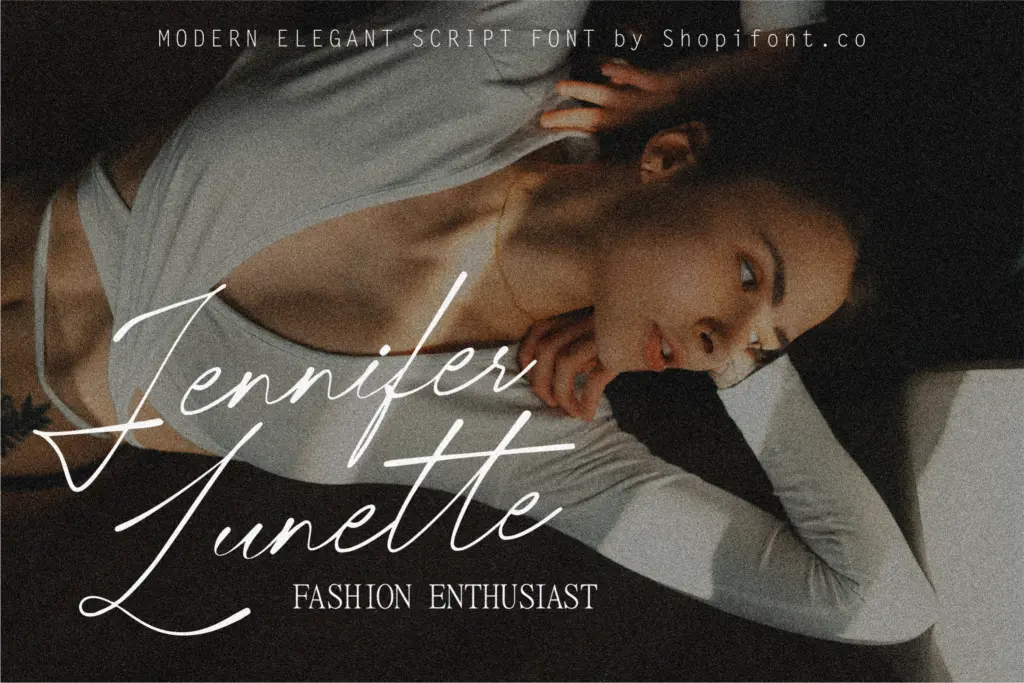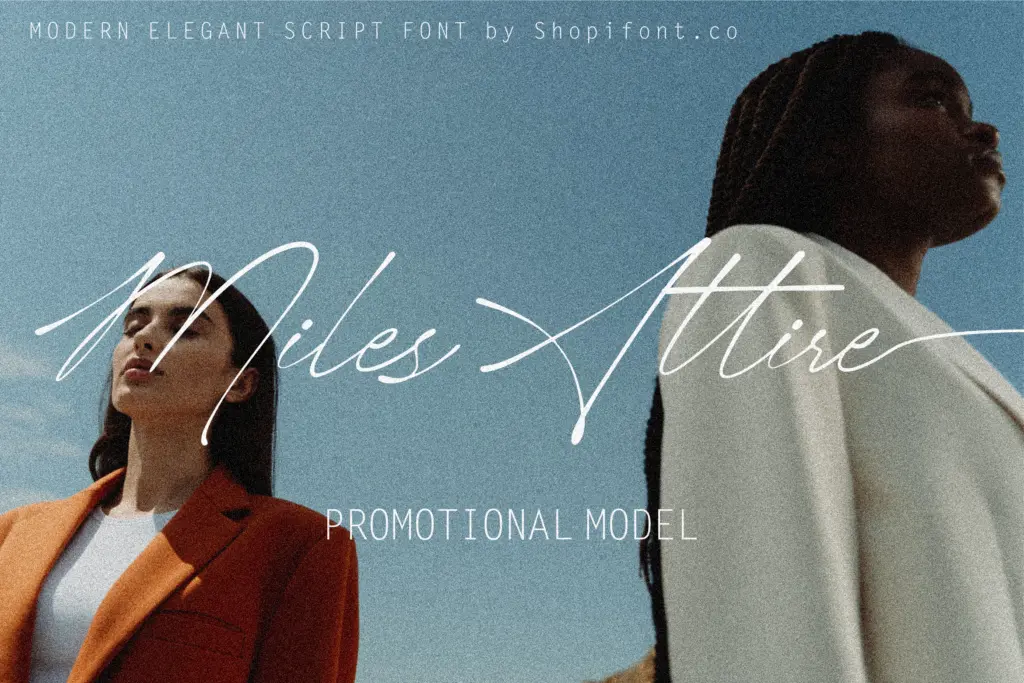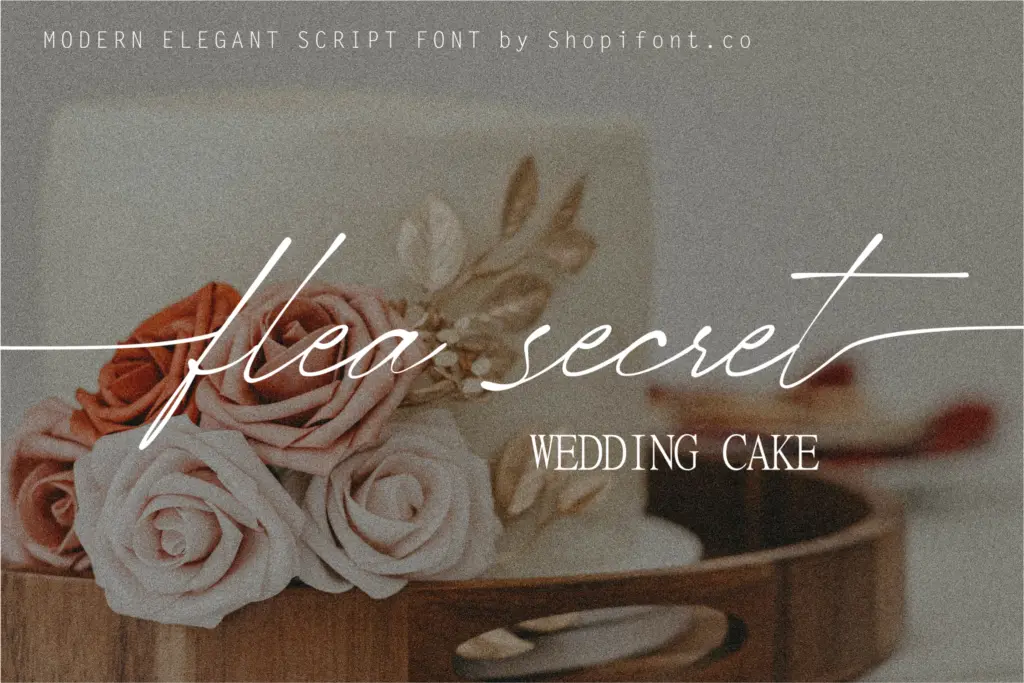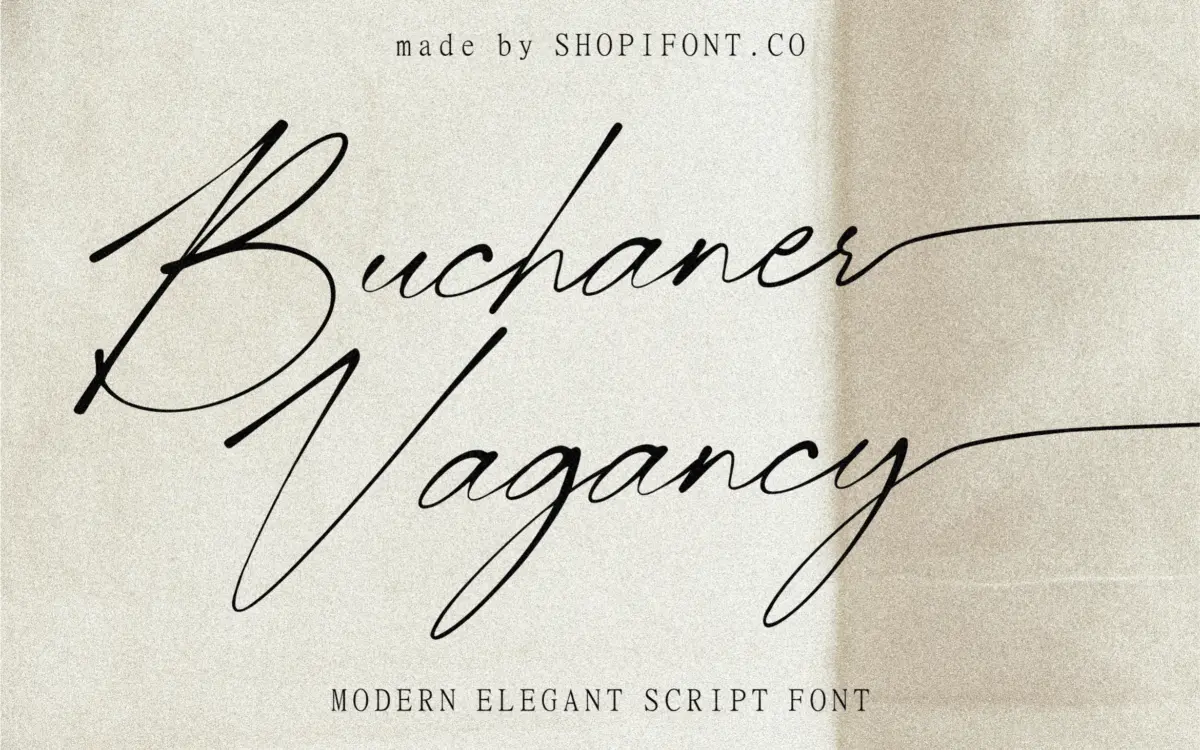
Buchaner Vagancy Font Free Download
Buchaner Vagancy sits in the crowded lane of modern casual scripts: connected lowercase strokes, a moderate forward slant, and enough irregularity in the baseline to read as handwritten rather than mechanically drawn. The stroke has a brush-like contrast, thickening through the belly of the letter and tapering into fine entry and exit strokes. It’s not a calligraphic script built on pointed-pen logic — the contrast is looser, more marker or brush-pen in feeling, which puts it closer to the current wave of casual signature-style scripts than to something like a formal copperplate.
Letter joins are the main event here. The connections between lowercase letters are drawn with some care, and the font avoids the stiff, robotic linking that plagues a lot of script releases where every join looks identical regardless of the letter pair. There’s variation in how ascenders and descenders loop, which keeps a line of text from feeling like it was stamped from a single repeating unit. That said, the design doesn’t take many risks. It’s a competent, pleasant script rather than one with a distinct personality you’d recognise out of context.
The set covers uppercase and lowercase Latin characters plus numerals and standard punctuation, with multilingual support extending it to accented characters for European languages. That’s useful if your copy needs diacritics for French, Spanish, or Nordic-language branding work — a lot of script fonts at this price point skip that entirely and this one doesn’t.
This is a font built for short bursts of text: a wedding invitation’s
- Letter joins vary naturally instead of repeating identically
- Multilingual character support covers accented Latin languages
- No stated contextual alternates or swash variants limits flexibility for longer text
- The overall design plays it safe and lacks a distinct point of view compared to standout scripts in the category
Buchaner Vagancy is a solid, unshowy modern script that handles short lines of wedding and packaging copy well but doesn't distinguish itself from the many similar scripts on the market. Multilingual support and dual-format files add practical value, but the lack of stated OpenType alternates limits how far it can be pushed. Good for straightforward branding jobs, less suited to anything requiring visual variety across long text.